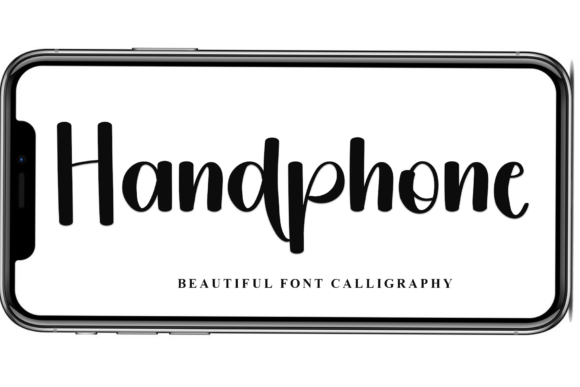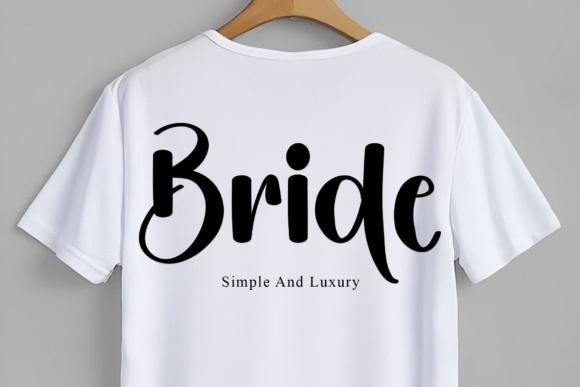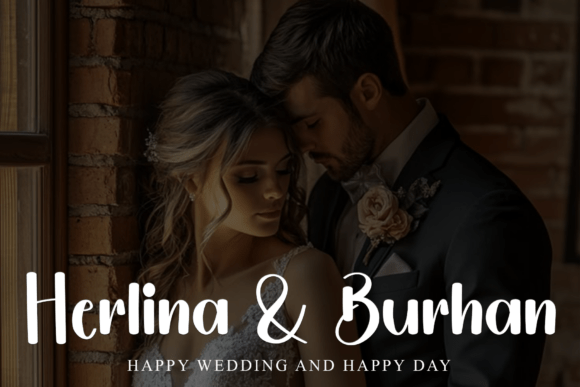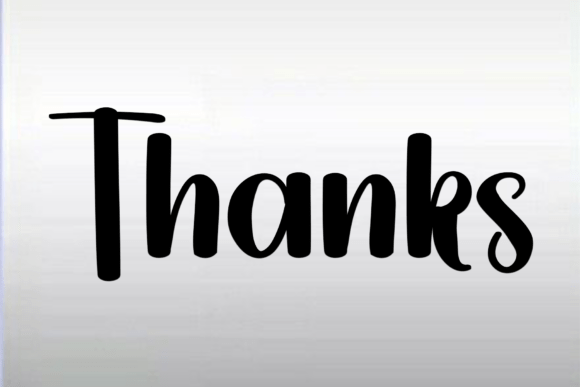
Discovering the Perfect Blend of Simplicity and Elegance
As a designer, there’s nothing quite like the thrill of finding that one perfect font that speaks to your brand’s personality. For me, it was the moment I stumbled upon the Alphabet Font. I was working on a project for a sustainable lifestyle brand, and I knew I needed a typeface that embodied the values of approachability, trust, and style.
That’s when I discovered the Alphabet Font, a modern script style that reimagines the classic calligraphy look with a simplified, monolinear stroke. Its smooth, rounded terminals and friendly rhythm make it the perfect choice for brands that want to appear understated yet stylish. As a designer, I can attest to the Alphabet Font’s incredible versatility across digital and print mediums, making it an invaluable asset for any design project.
The Alphabet Font is more than just a pretty face – it’s a workhorse script that can elevate even the most minimalist designs to new heights. Whether you’re looking to add a human touch to your web headers or let it take center stage on product packaging, the Alphabet Font is sure to deliver.
Key Features of Alphabet Font
- Unique Characteristics: Alphabet Font features a unique, hand-drawn design with subtle irregularities, giving it a personal and human touch that sets it apart from other fonts.
- Font Styles: Alphabet Font includes a range of font styles, including Regular, Bold, Italic, and Bold Italic, providing flexibility and versatility in its application.
Alphabet Font Review
As a designer, I was excited to dive into the Alphabet Font and see what it had to offer. Overall, I was pleased with the experience, but there were some limitations that I’d like to highlight.
- Unique Character Set: The Alphabet Font has a distinct character set that’s perfect for adding a touch of personality to your designs.
- Customizable: The font is highly customizable, allowing you to adjust the spacing, size, and color to suit your needs.
- Clean and Simple: The font’s clean and simple design makes it easy to read and understand, even at smaller sizes.
- Limited Language Support: Unfortunately, the Alphabet Font only supports a limited number of languages, which may be a concern for international projects.
- Not Ideal for Small Text: While the font is clean and simple, it can become difficult to read when used for small text, especially in situations where legibility is crucial.
Overall, I’d say the Alphabet Font is a solid choice for designers looking to add a touch of personality to their work. While it has some limitations, its unique character set and high level of customization make it a great option for a wide range of projects.
Practical Application Guide for Alphabet Font
Some popular use cases for Alphabet Font include:
– Creating custom invitations and party decorations
– Designing educational materials and children’s books
– Adding a touch of whimsy to marketing materials and social media graphics
– Using it to create personalized gifts and keepsakes
Getting the Most Out of Alphabet Font
To get the most out of Alphabet Font, try experimenting with different font styles and combinations to create unique and eye-catching designs. You can also use it in conjunction with other design elements, such as images and graphics, to add depth and interest to your designs.